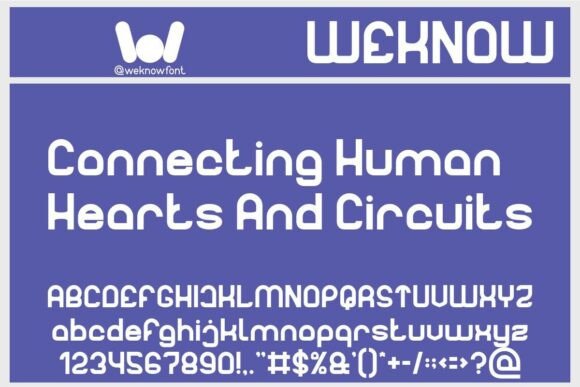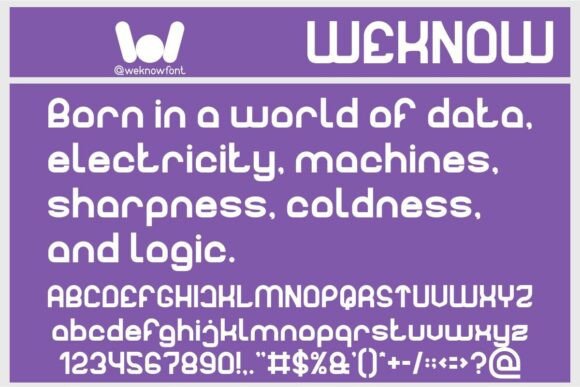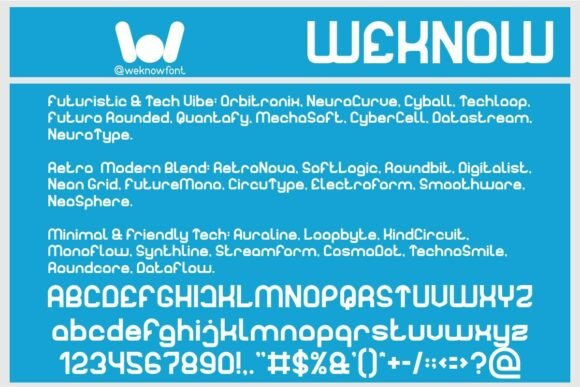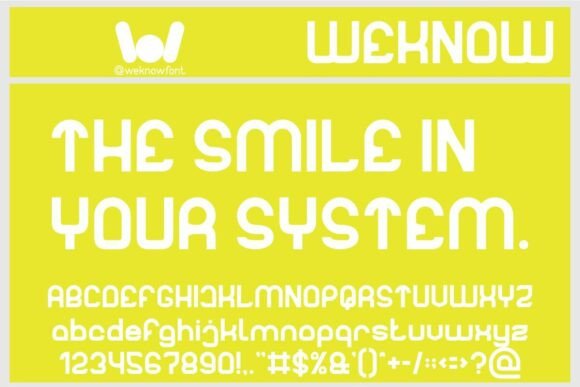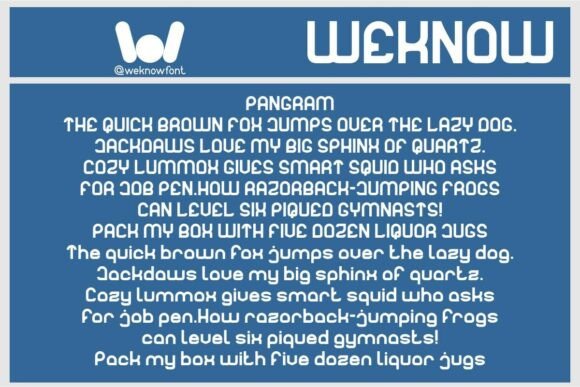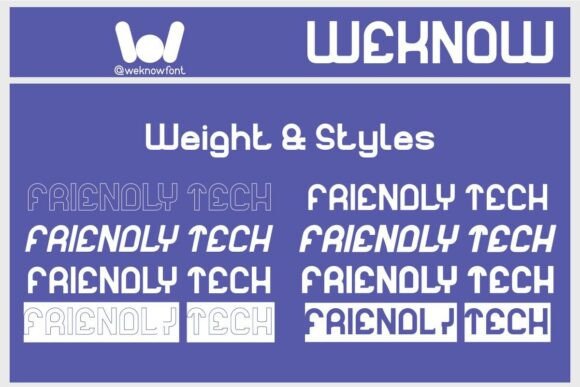
Introducing Friendly Tech: The Futuristic Font Redefining Typography
Immerse yourself in the futuristic realm of typography with Friendly Tech, an avant-garde sans-serif display typeface that is revolutionizing the world of design. This innovative font synergizes the retro-futuristic aesthetic with rounded, techno-geometric designs, lending your brand an ultramodern visual language that is sure to leave a lasting impression.
The Birth of a New Era in Typography
Friendly Tech is more than just a font – it’s a style statement for your cutting-edge design projects. Rooted in space-age aesthetics, this modular font is designed to redefine logos and logotypes, bestowing an edge unlike any other. With its cutting-edge appeal, Friendly Tech is a striking choice for headlines, brands, and corporate identity, blending seamlessly into various industries such as apparel, music, movies, and gaming.
Unleash Your Creativity with Friendly Tech
The versatility of Friendly Tech knows no bounds. Its contemporary flair makes it a perfect fit for magazines, books, and cartoons, excelling in digital platforms from YouTube to Instagram and websites. Whether you’re a designer, craftsperson, or simply a creative enthusiast, Friendly Tech is the perfect tool to help you bring your ideas to life.
Key Features of Friendly Tech
- Retro-Futuristic Aesthetic: Friendly Tech’s unique blend of retro and futuristic elements creates a distinctive visual language that sets your brand apart.
- Rounded, Techno-Geometric Designs: The font’s rounded edges and geometric shapes give it a friendly, approachable feel that’s perfect for modern brands.
- Modular Design: Friendly Tech’s modular design makes it easy to use and customize, allowing you to create a unique look that suits your brand’s personality.
- Ultramodern Visual Language: With Friendly Tech, you can give your brand an ultramodern visual language that’s sure to impress.
Applications of Friendly Tech
Friendly Tech is a versatile font that can be used in a variety of applications, including:
- Logos and Logotypes: Friendly Tech’s unique design makes it perfect for creating memorable logos and logotypes that stand out.
- Headlines and Titles: The font’s bold, futuristic aesthetic makes it ideal for headlines and titles that need to grab attention.
- Branding and Corporate Identity: Friendly Tech can help you create a consistent brand image that reflects your company’s values and personality.
- Digital Platforms: The font’s clean, modern design makes it perfect for use on digital platforms such as YouTube, Instagram, and websites.
- Print Media: Friendly Tech can also be used in print media, such as magazines, books, and cartoons.
Why Choose Friendly Tech?
With so many fonts to choose from, why should you choose Friendly Tech? Here are just a few reasons:
- Unique Design: Friendly Tech’s unique blend of retro and futuristic elements sets it apart from other fonts.
- Versatility: The font’s versatility makes it suitable for a wide range of applications and industries.
- Easy to Use: Friendly Tech’s modular design makes it easy to use and customize, even for those without extensive design experience.
- Cutting-Edge Appeal: With Friendly Tech, you can give your brand a cutting-edge appeal that’s sure to impress.
In conclusion, Friendly Tech is a game-changing font that’s redefining the world of typography. With its unique blend of retro and futuristic elements, rounded techno-geometric designs, and modular design, Friendly Tech is the perfect choice for designers, craftspersons, and creative enthusiasts looking to give their brand an ultramodern visual language. Whether you’re looking to create a memorable logo, craft a compelling headline, or simply add a touch of futurism to your design project, Friendly Tech is the perfect tool for the job.